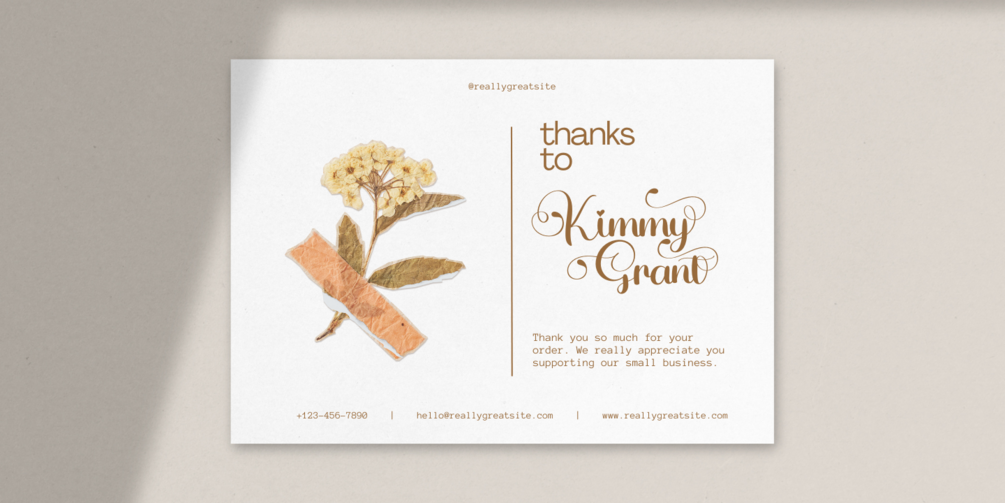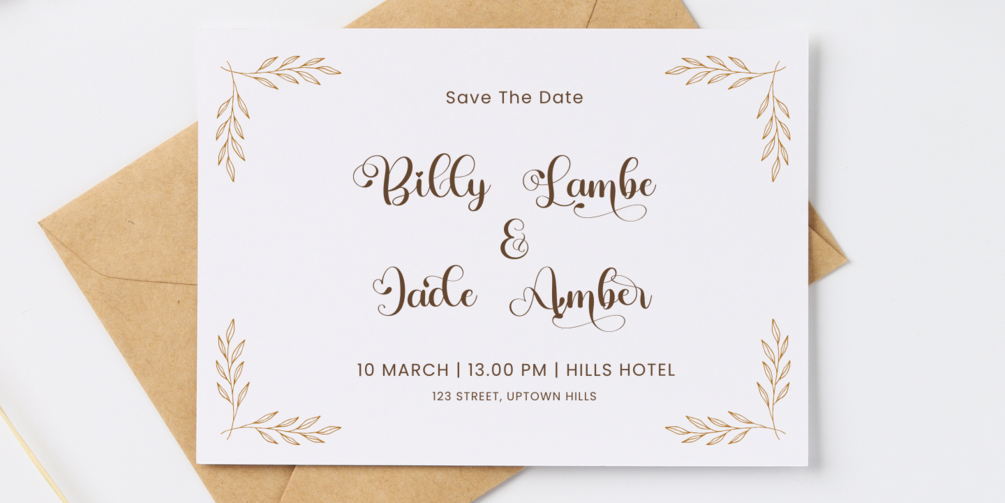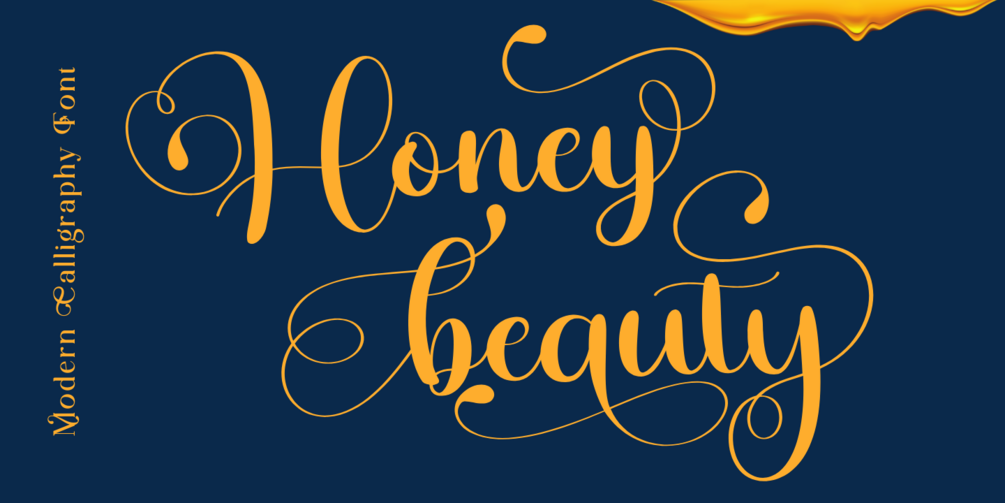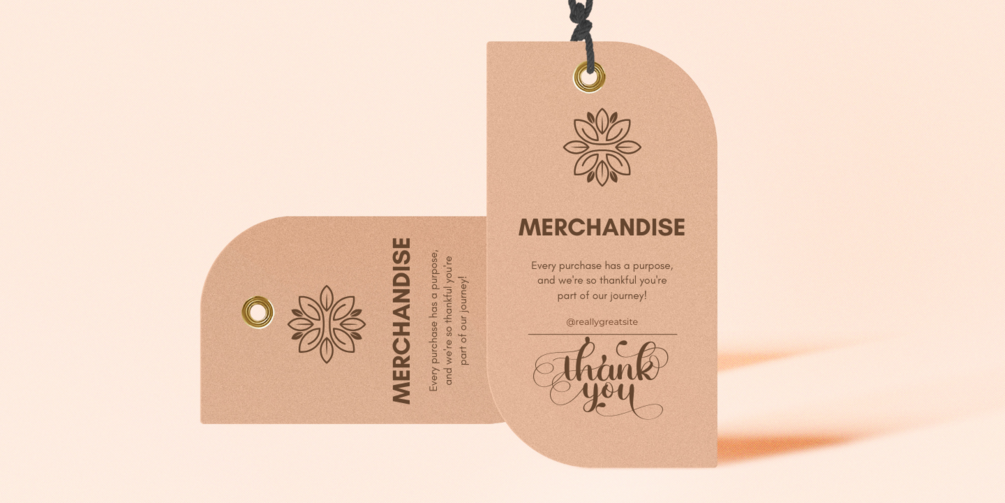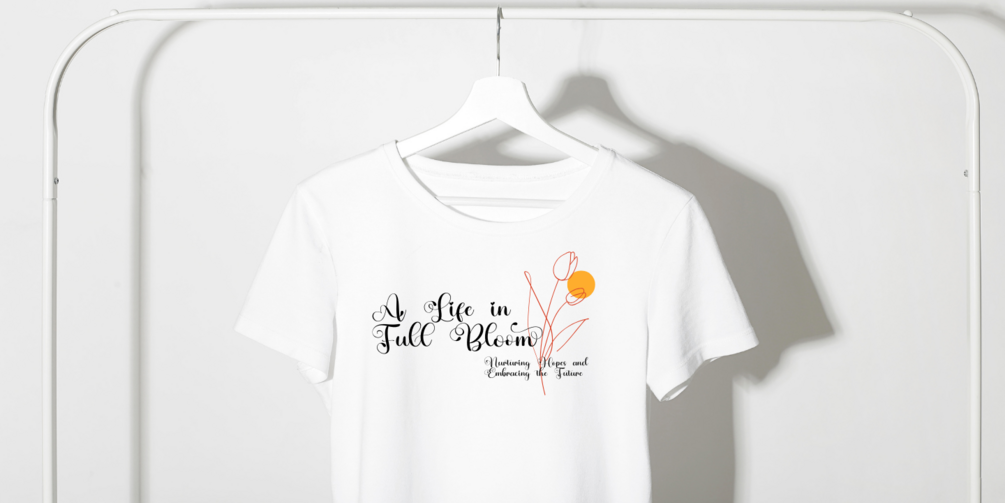
Honey Beauty
Honey Beauty is a charming handwritten script font filled with delightful alternates!
This font is here to transform your creative ideas into stunning works of art.
Each letter is crafted with a unique and graceful touch, bringing warmth and life to your designs.